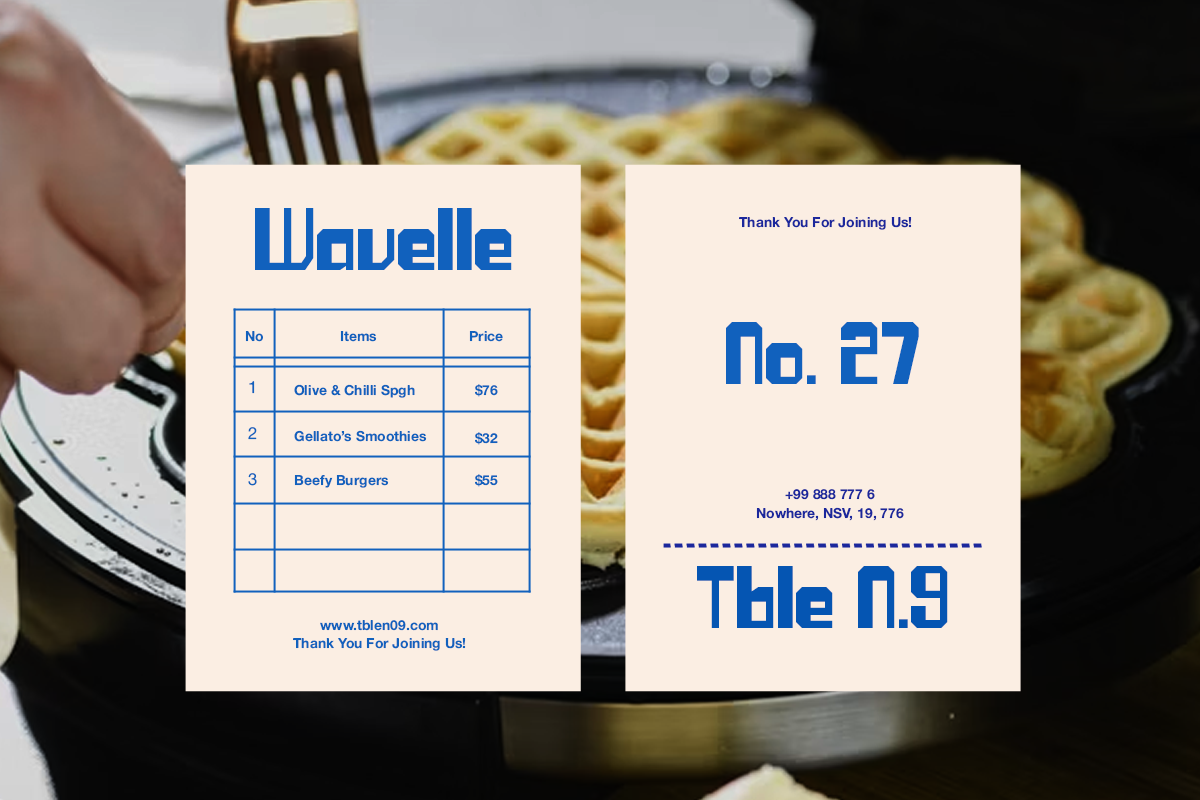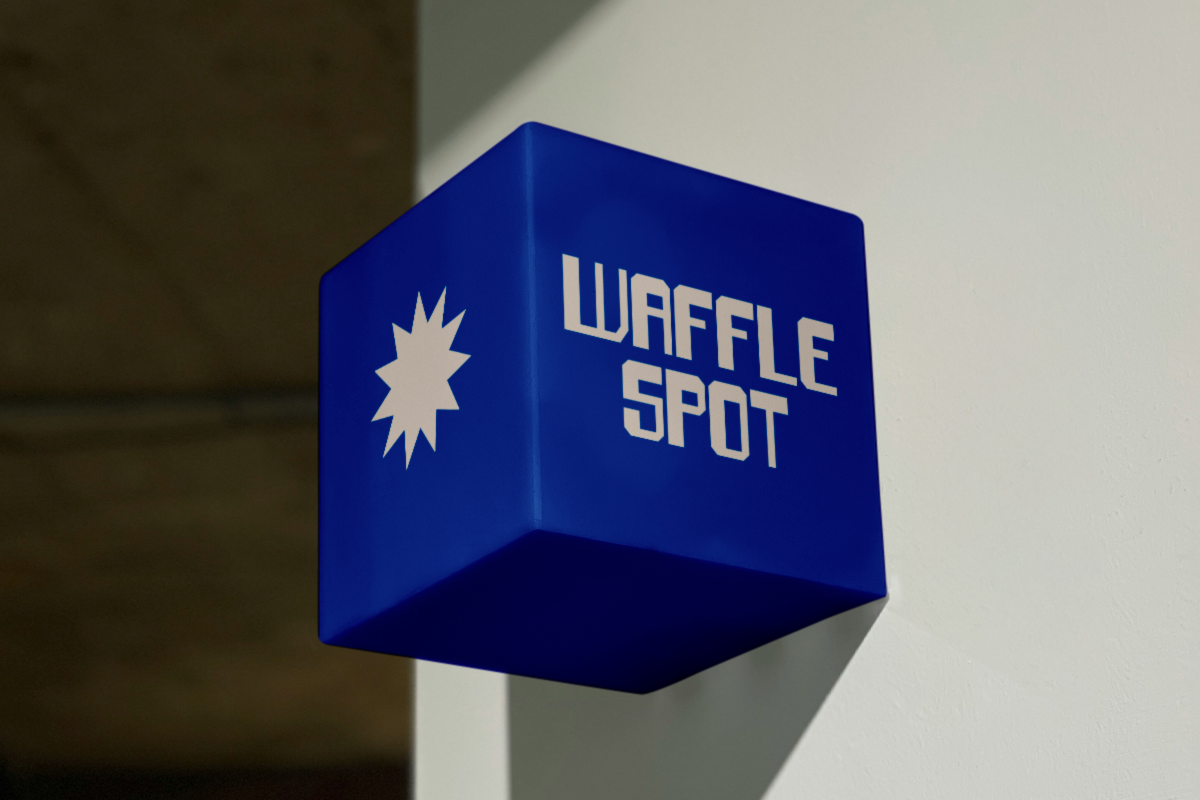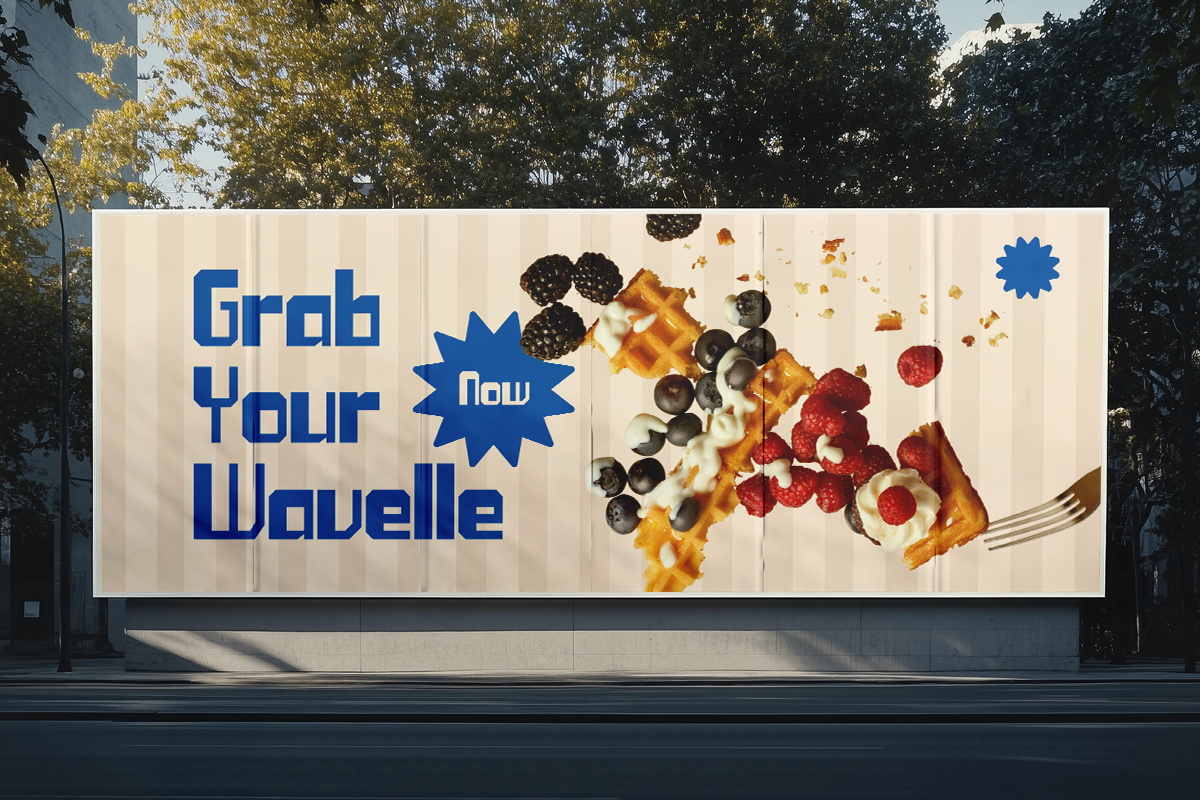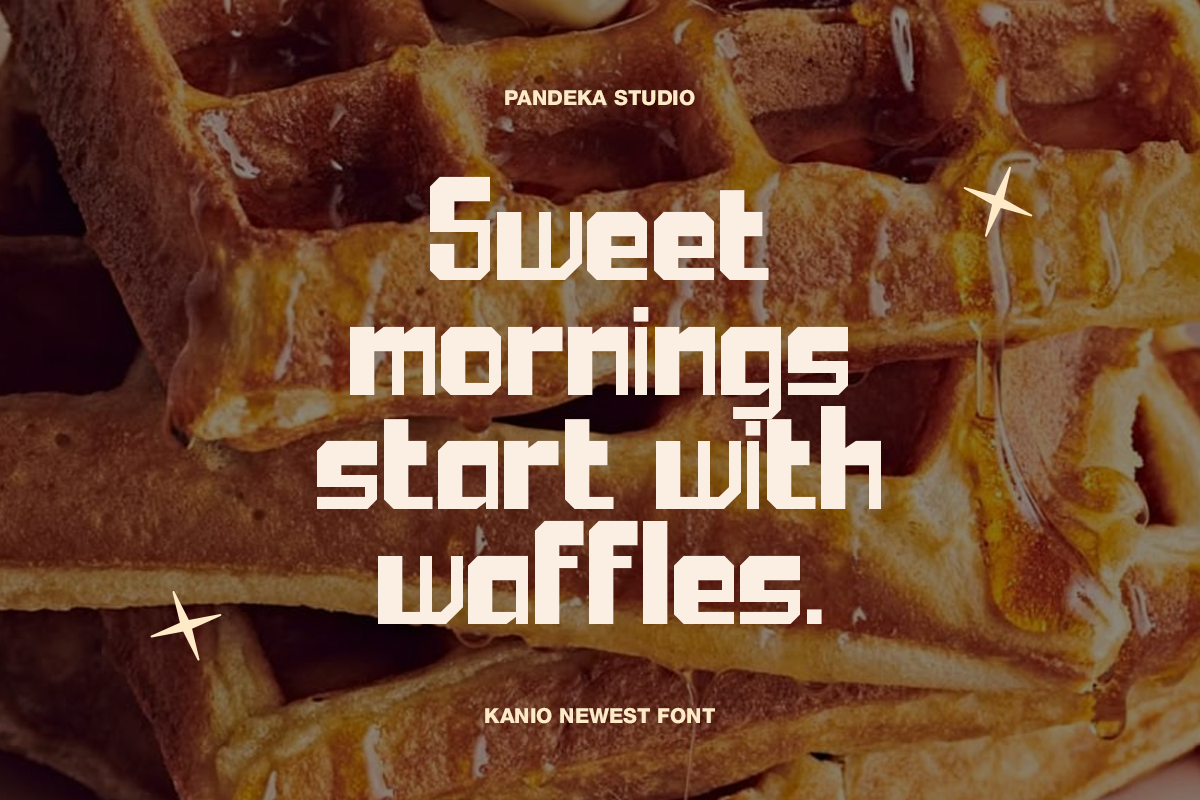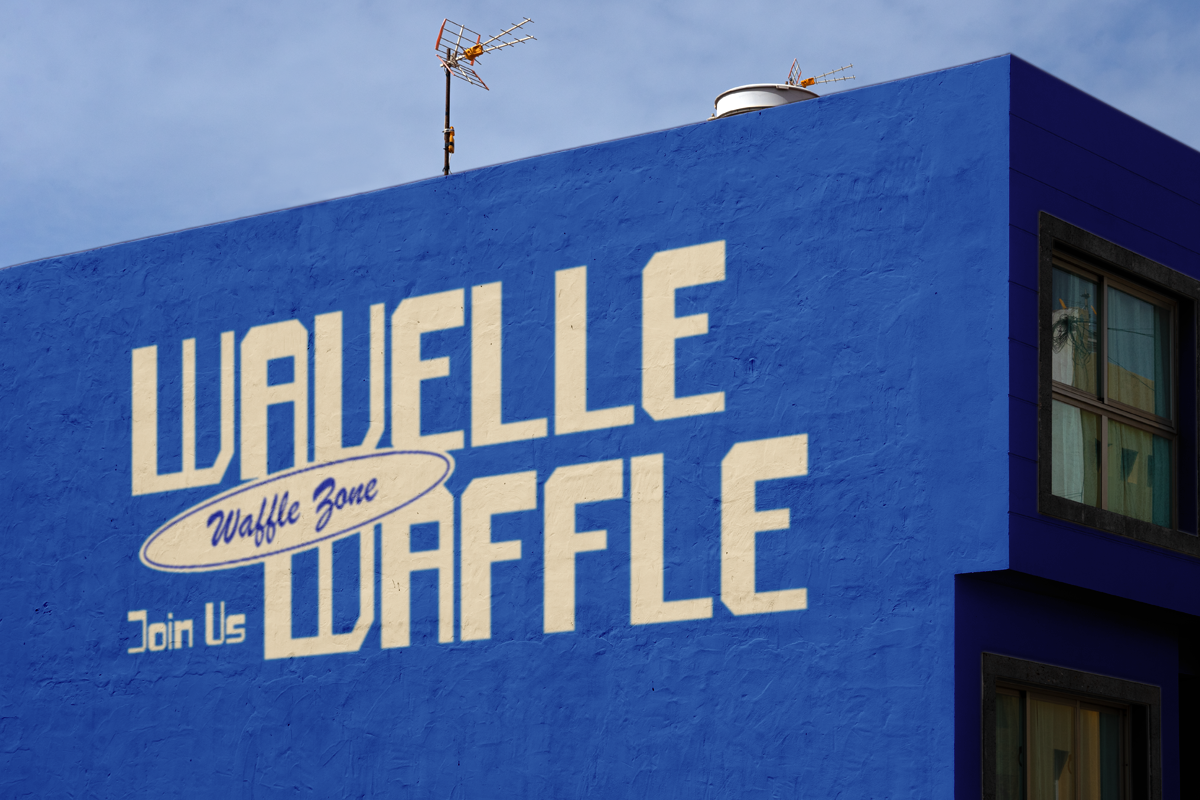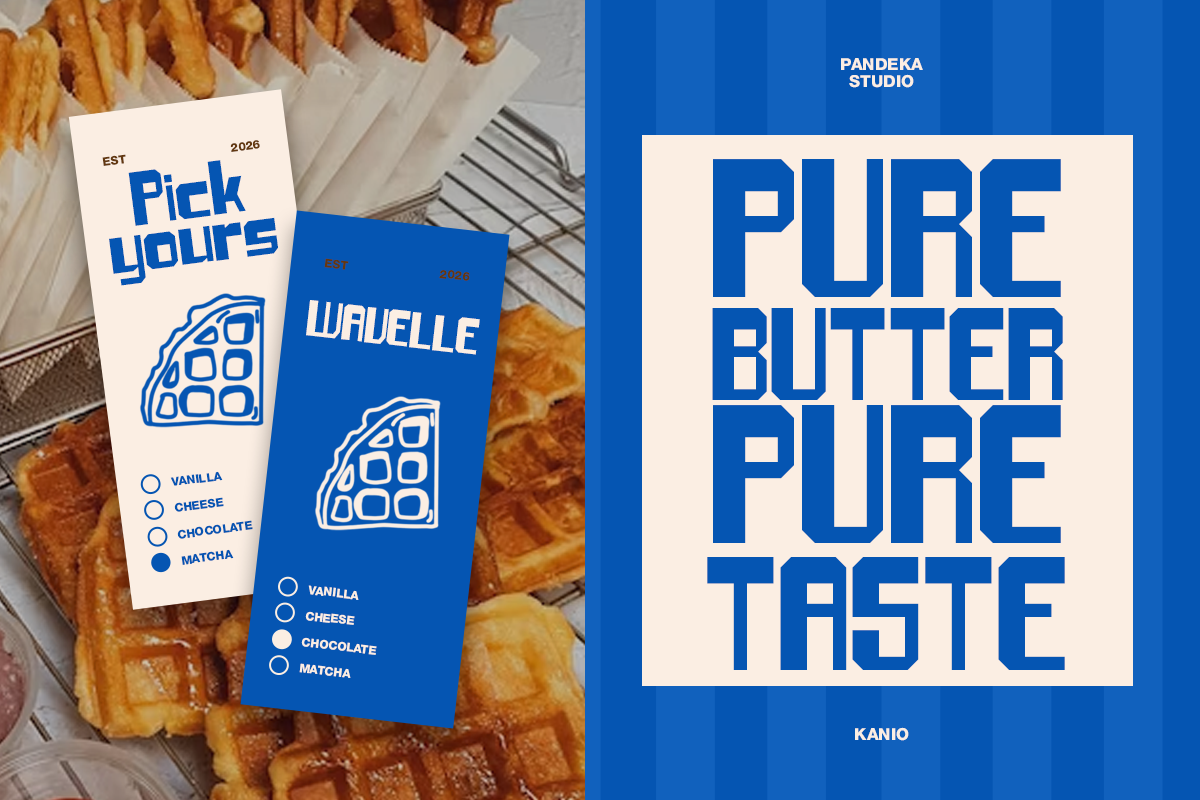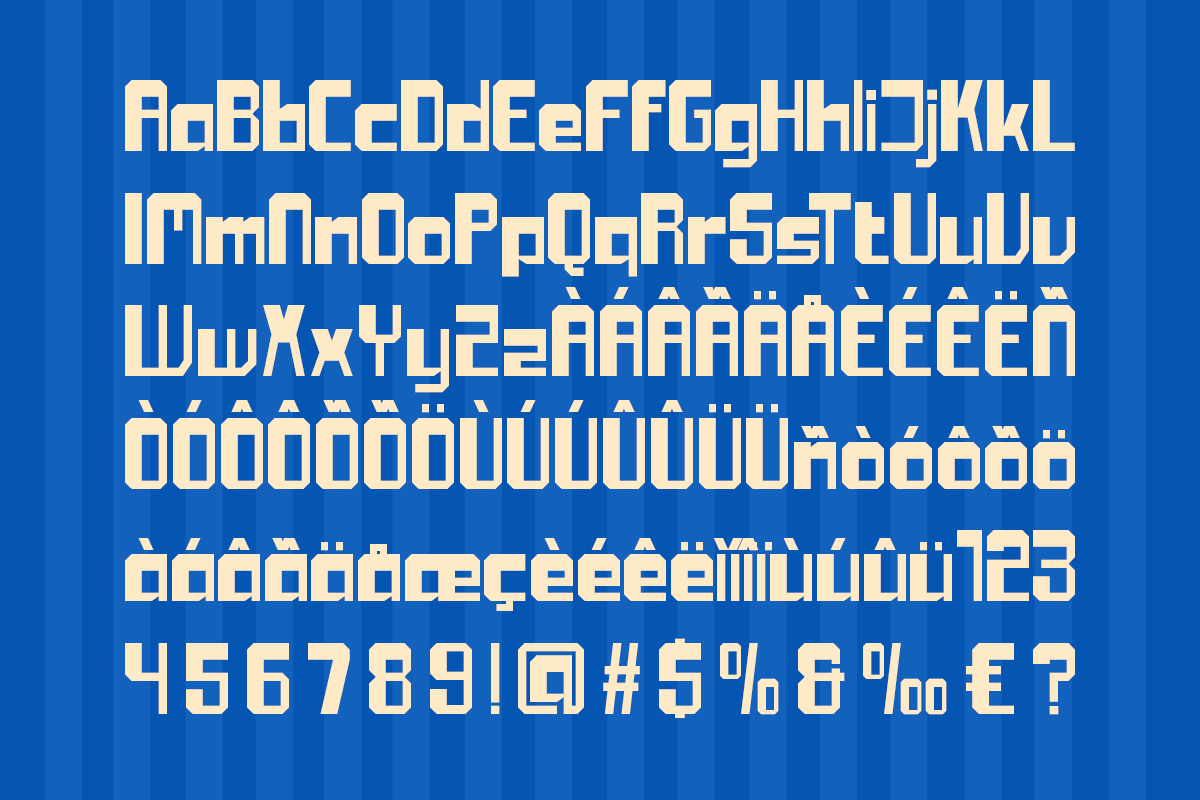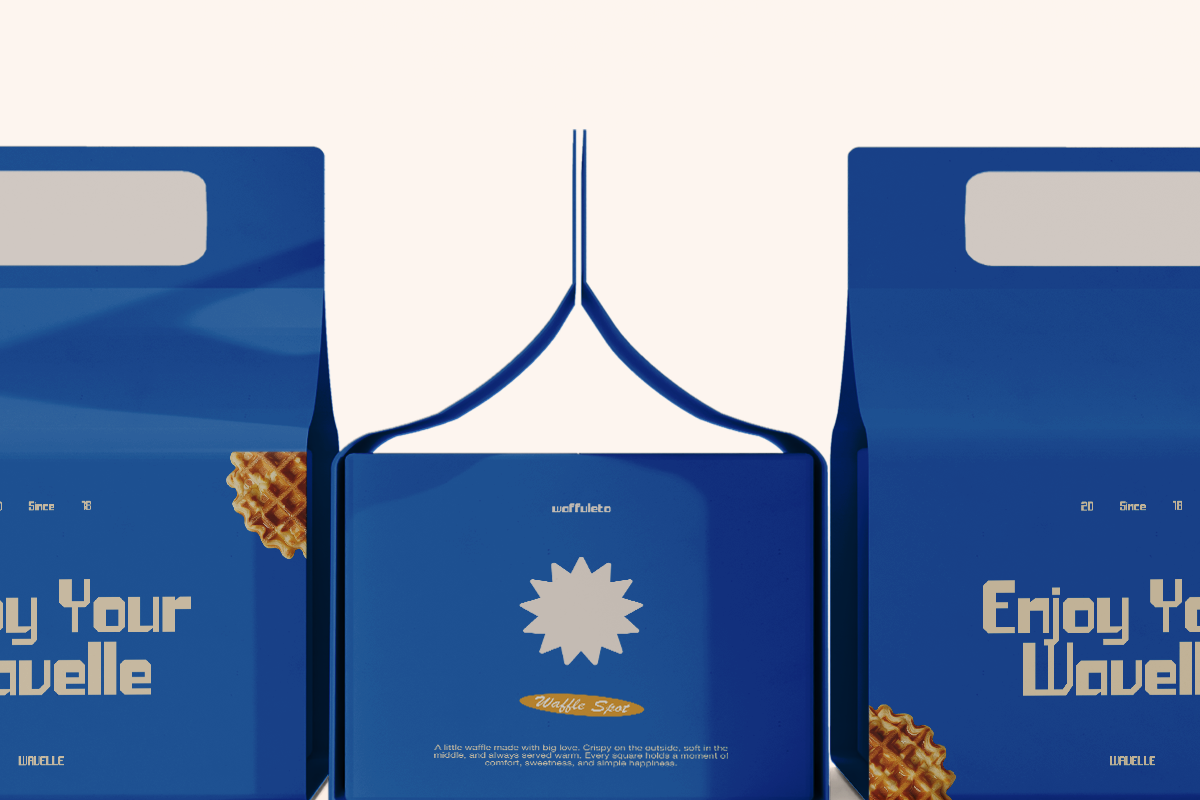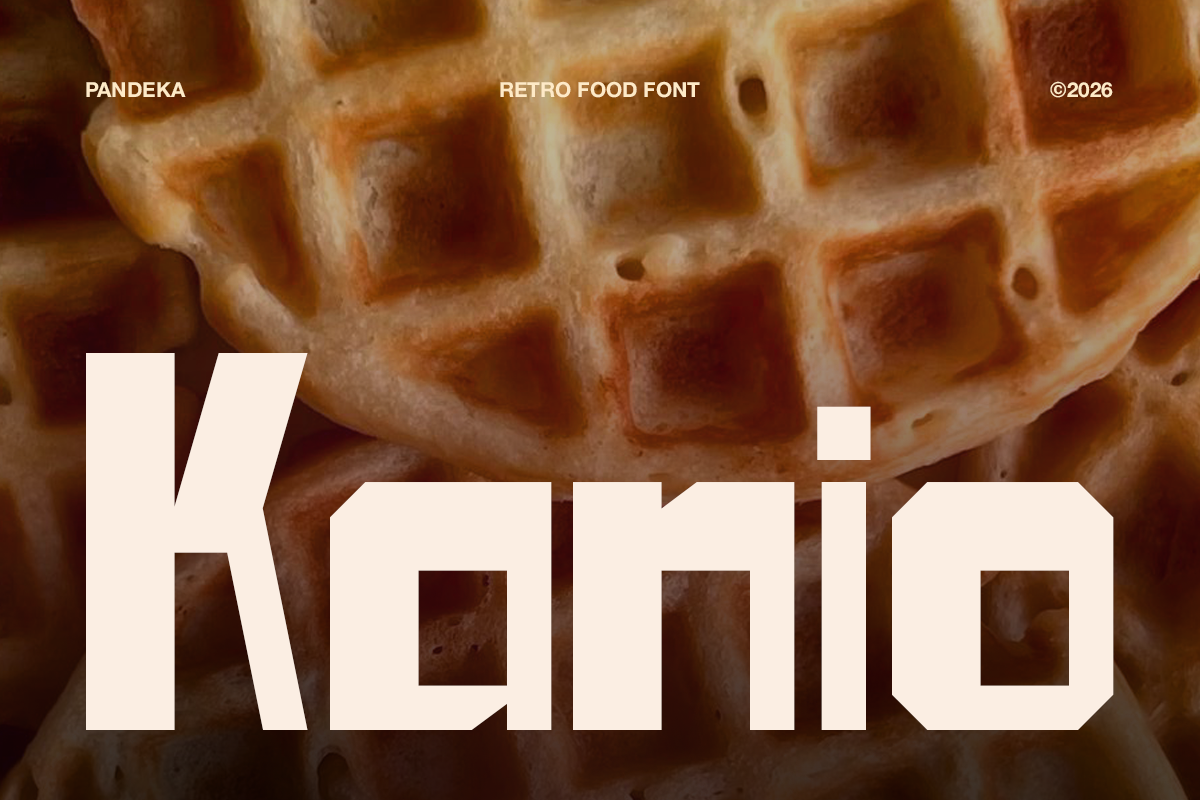
Kanio - Retro Food Font
Kanio is a retro food font featuring bold geometric letterforms, distinctive cuts, and a strong vintage-inspired character. Designed to bring a nostalgic yet modern feel to food-related visuals, Kanio works especially well for bakery, cafe, waffle, snack, restaurant, and casual food branding.
Kanio comes in 2 styles: Regular and Oblique giving designers flexibility for dynamic headlines and expressive compositions. Ideal for food logos, packaging, menus, signage, posters, labels, social media graphics, advertising, and product branding, Kanio adds a bold retro personality to every design.
2 Style: Regular and Oblique
Full Character Set: Uppercase, lowercase, numbers, symbols, and punctuation